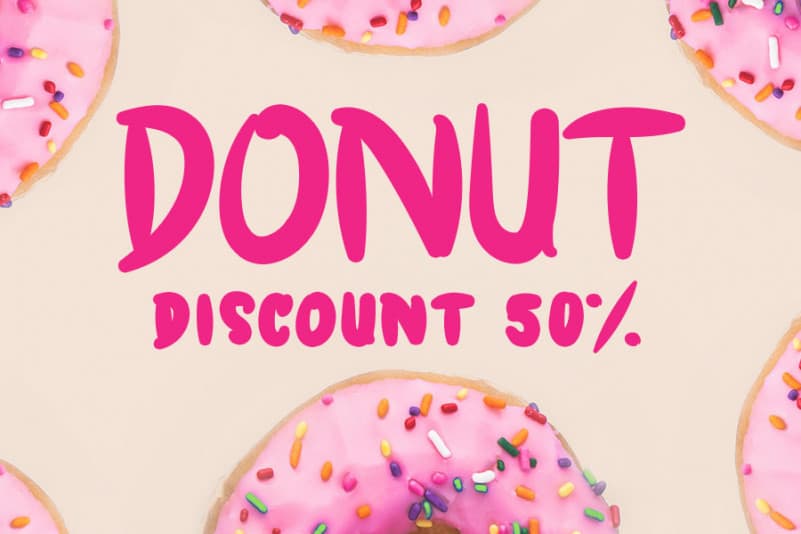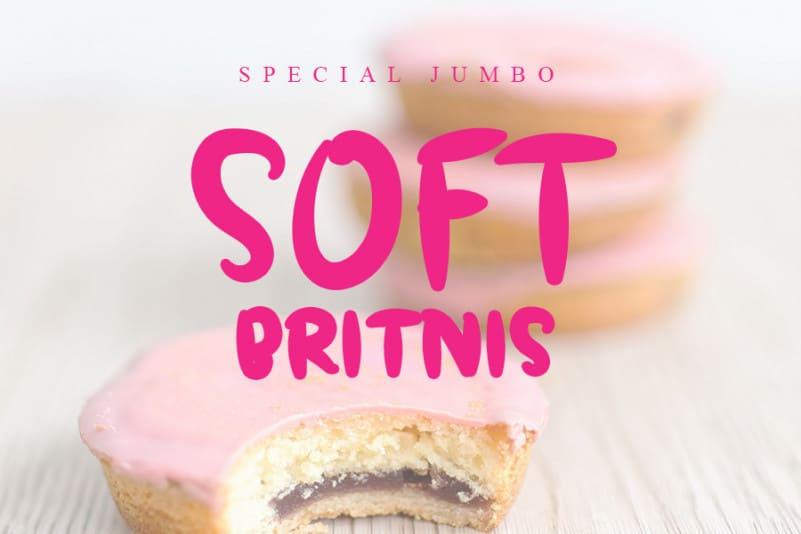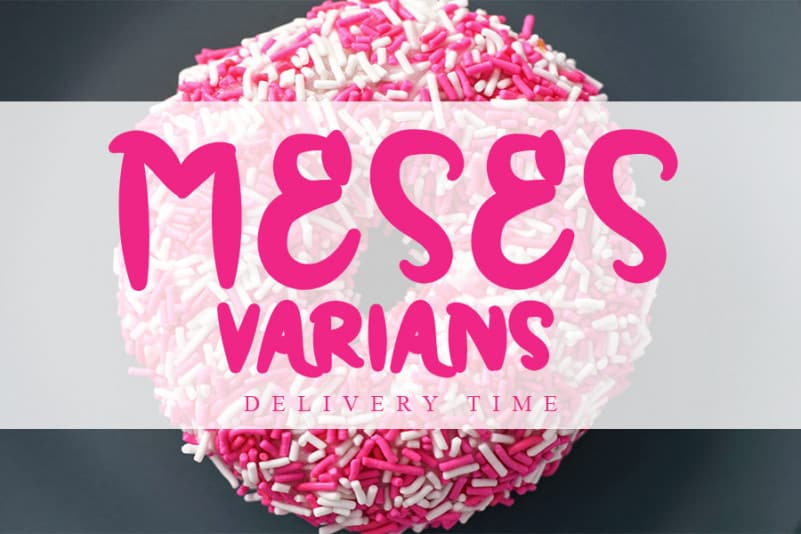
DONUT BIRTNIS Display Font
DONUT BIRTNIS Display Font is a great. It maintains its classy calligraphic influences while feeling contemporary and fresh. This versatility will appeal to a wide range of crafty ideas, from letterheads and titles to stationery.